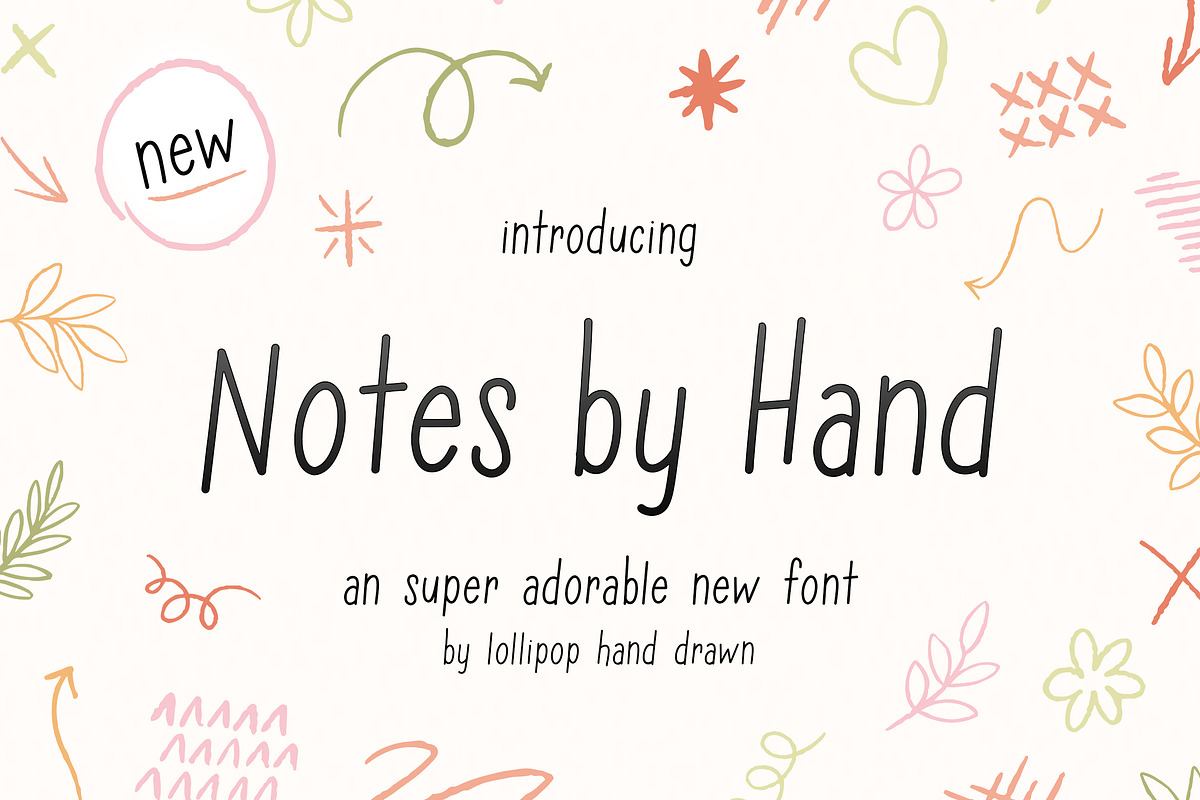
The Notes by Hand Font Free Download is a charming handwritten script typeface that adds a personal and creative touch to your designs. Perfect for crafting logos, invitations, greeting cards, social media graphics, and custom branding, this font brings a friendly and unique flair to any project. Please note, for commercial use, a license must be purchased. You can download it for free for testing purposes.
With its smooth and flowing strokes, the Notes by Hand Font Free Download is ideal for projects that require a natural, informal feel. Whether you're working on a personal blog, event invitations, or a custom stationery project, this font will add a warm and inviting aesthetic to your work.